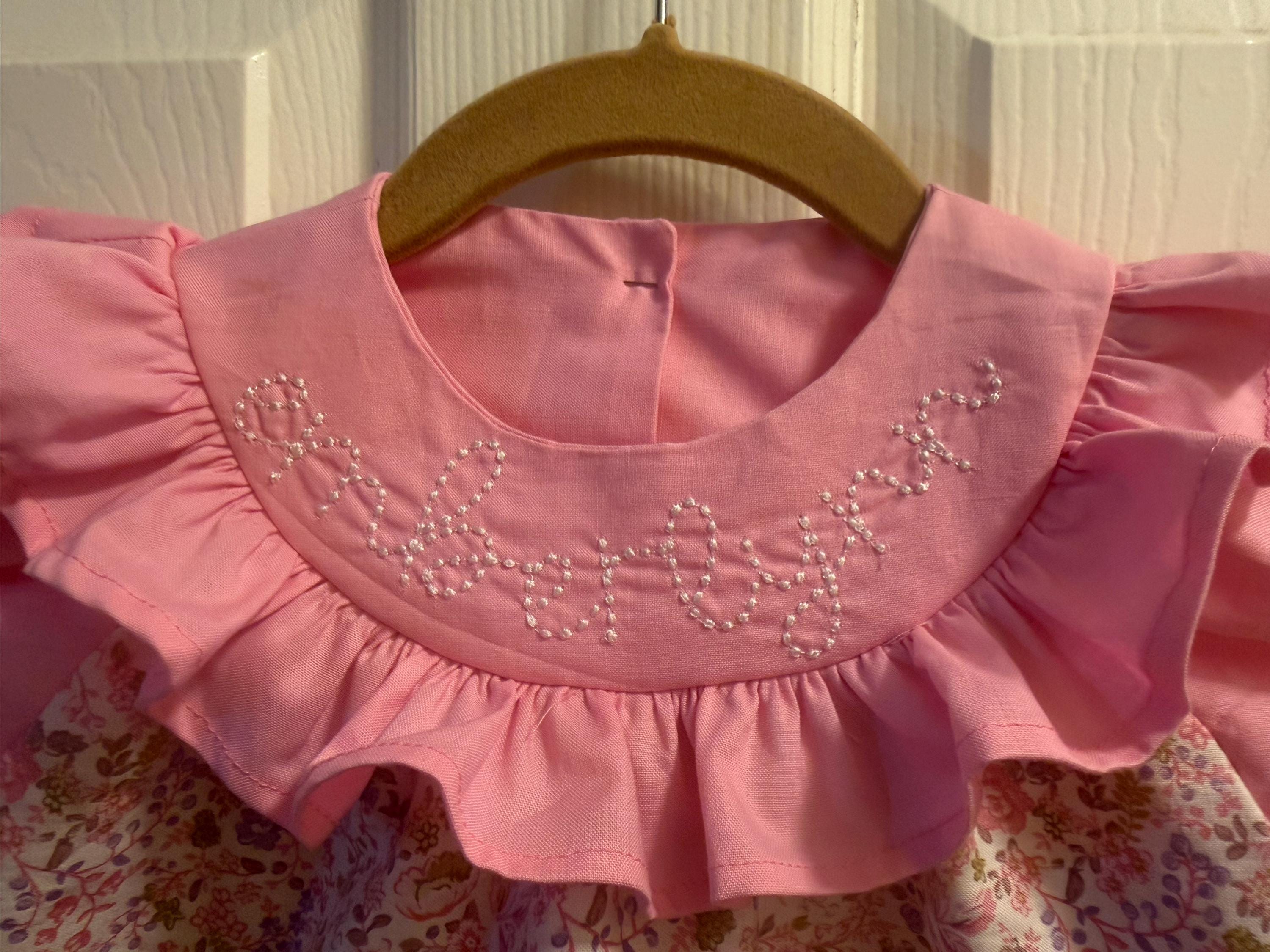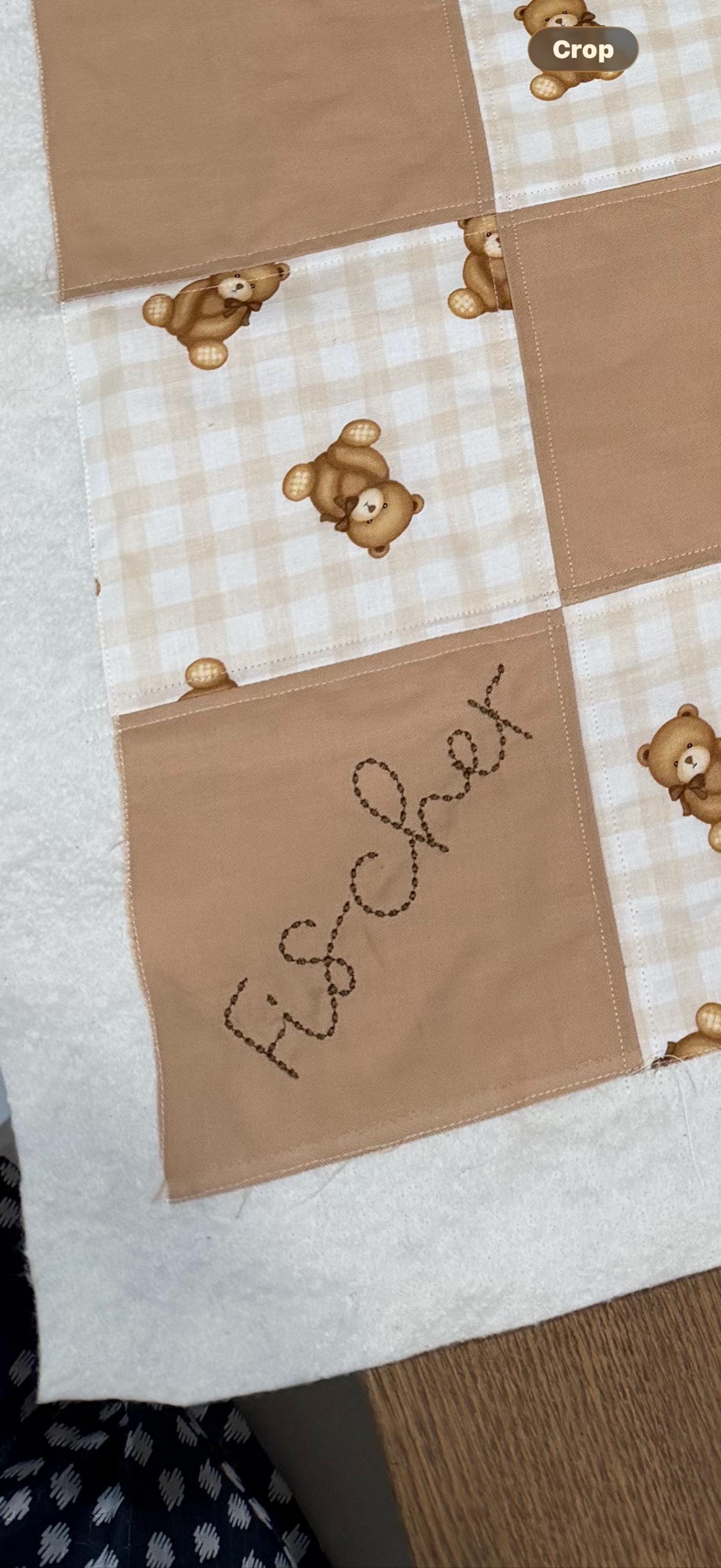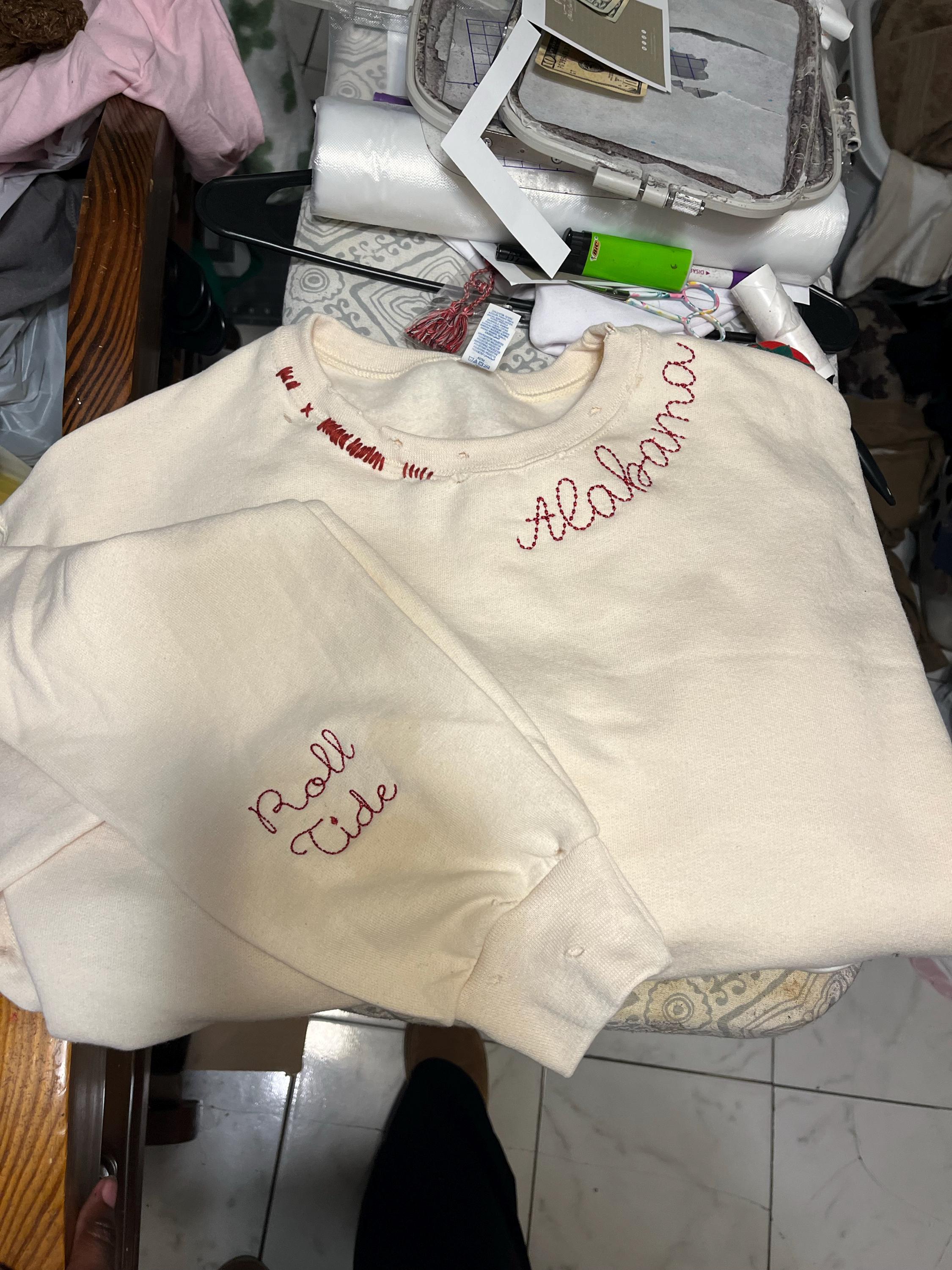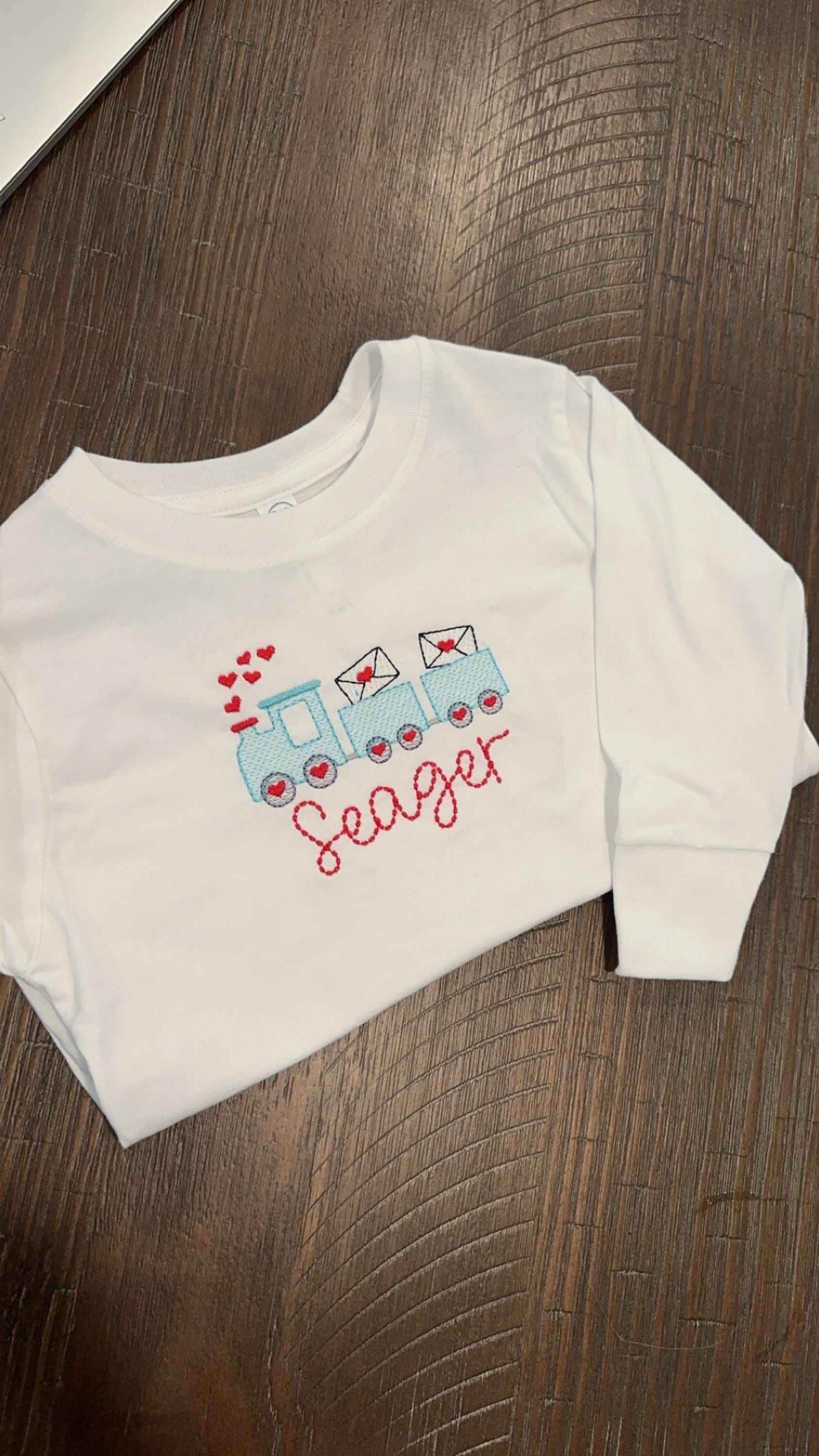
Sweetcake Script Font Hand Stitch Effect
Create beautiful, heartfelt projects with this script font.
About This Design
The Sweetcake Script Font Hand Stitch Effect is perfect for creating personalized baby projects and heartfelt gifts. This bean stitch font allows you to easily add unique monograms or whimsical letters to your embroidery designs. With variations in size from 1 inch to 2.9 inches, it caters to diverse crafting needs. It's a great choice for 'baby embroidery', 'hand stitch font', and 'monogram designs' enthusiasts, making every project special.
- Use the bean stitch technique for a lovely hand-stitched effect.
How is the bean stitch effect achieved?
The bean stitch effect is created by alternating short stitches which mimic the look of hand stitching.